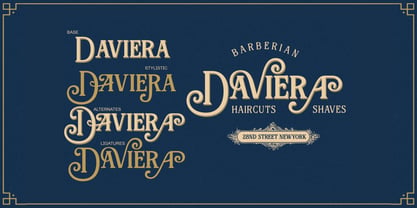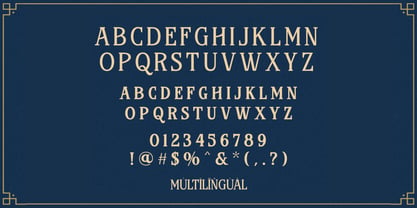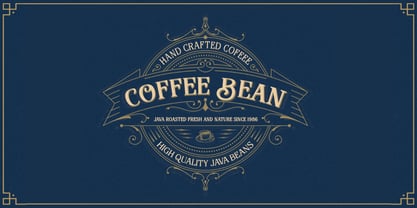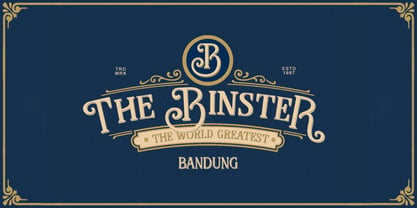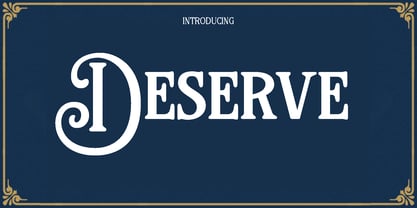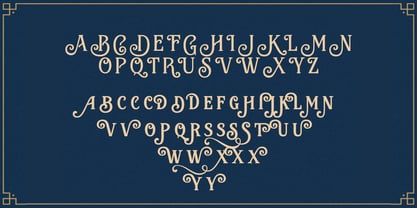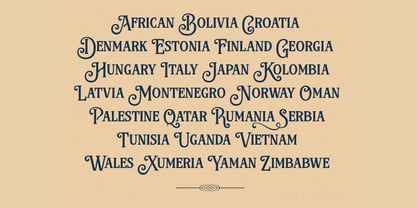
Deserve
The Deserve Font Family was designed by Olivia Love and published by Only Fonts. Deserve contains 1 styles. More about this family
Deserve is a poised, contemporary display typeface crafted to balance clarity and character, giving creative teams a flexible voice that feels premium without losing approachability. Its letterforms blend clean geometry with gentle modulation, creating headlines that land with confidence while remaining easy to read across print and digital. Subtle stylistic touches add distinction in logos and mastheads, and the overall rhythm supports strong hierarchy for editorial and campaign work. Story and style - Deserve takes cues from modern editorial typography, refining open counters, sturdy verticals, and measured contrast to deliver a look that is crisp, current, and brand ready. - The design emphasizes clarity at impact sizes while preserving a graceful silhouette for titles, pull quotes, and hero lines. Where it shines - Brand identities that need versatile wordmarks, submarks, and headlines that feel unified across touchpoints. - Editorial systems for books and magazines where cover lines and section openers must command attention and guide the eye. - Marketing assets including posters, advertisements, blog headers, and photography-led layouts that require a clear, premium message. Use cases - Logotypes that leverage stylistic sets for unique letter pairings and signature moments. - Campaign headlines, product names, and quote cards with tight spacing and controlled line breaks for strong grid discipline. - Social graphics and banners where fast readability and memorability are essential. Standout features - Complete character set with uppercase, lowercase, numerals, symbols, and punctuation for comprehensive display systems. - Stylistic alternates to fine tune tone from refined to expressive without losing cohesion. - Functional, screen-conscious metrics that keep edges crisp in modern interfaces and large-format type. - Multilingual support to maintain brand consistency across regions and languages. Design tips - Pair Deserve with a neutral grotesque for body copy to balance clarity with character. - Use tighter tracking for a luxurious, editorial vibe, and slightly looser spacing for airier headlines. - Let negative space lead: generous margins and deliberate line breaks amplify contrast and rhythm. Voice and vibe - Modern, articulate, confident, and adaptable for brand and editorial worlds. - Ideal for teams seeking typography that feels tailored out of the box and scales from logo to layout with ease.